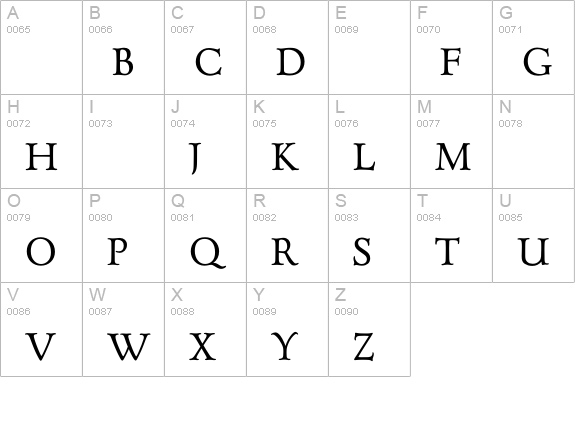
ForumTitlingBold font is a bold and striking typeface that commands attention with its powerful presence. Its strong, crisp lines and bold strokes make it ideal for titles and headlines that need to make a statement. The font exudes a sense of confidence and authority, making it perfect for projects that require a bold and impactful look. Best of all, ForumTitlingBold font is available for free download at FontsMarket.com. This means you can easily access this impressive font and use it in your designs without any cost. Whether you're working on a poster, flyer, or any other creative project, ForumTitlingBold font will help your text stand out and make a lasting impression. Download it now and elevate your design game with this eye-catching typeface.